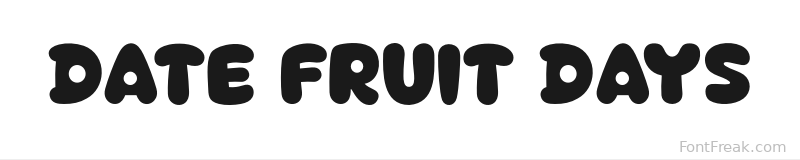
Date Fruit Days
About Date Fruit Days
Date Fruit Days by Syaf Rizal is a playful display font that embodies a whimsical charm perfect for a variety of creative projects. This font, categorized as a decorative typeface, features rounded, bold letterforms that exude a friendly vibe, making it an excellent choice for designs that aim to capture attention. The stroke weight is consistent throughout, while the lack of sharp edges adds to its approachable character. The spacing between the letters is generous, allowing for easy readability and a lighthearted aesthetic.
This versatile font shines in several specific use cases. It is ideal for designing vibrant wedding invitations, where its cheerful personality can set the tone for a joyful celebration. Additionally, Date Fruit Days is well-suited for children's party invitations, where its fun and engaging appearance can resonate with both kids and parents. Restaurant menus, especially those focused on playful or family-friendly dining experiences, can benefit from this font's inviting nature. Lastly, it can be effectively used in social media graphics and posts, making it a favorite among content creators looking to stand out in a crowded digital landscape.
The target audience for Date Fruit Days includes graphic designers, small business owners, and content creators who seek a font that conveys a sense of warmth and creativity. The freeware license makes it accessible for any project, regardless of budget constraints.
What sets the Date Fruit Days font apart is its unique ability to blend fun with functionality. Its distinctive style ensures that your designs will not only capture attention but also leave a lasting impression. For those looking to add a touch of playfulness to their projects, the Date Fruit Days font free download offers an excellent option to explore.